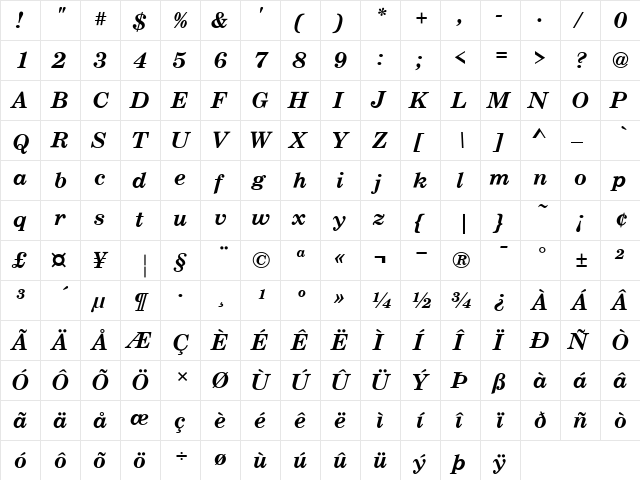
Century Schoolbook T Regular Font Preview
Century Schoolbook T Regular
Century Schoolbook T Regular Font Details
| Foundry | by URW |
Design Context for Century Schoolbook T Typeface
Century Schoolbook T is a composed and adaptable typeface that performs quietly and consistently across a wide range of design contexts.